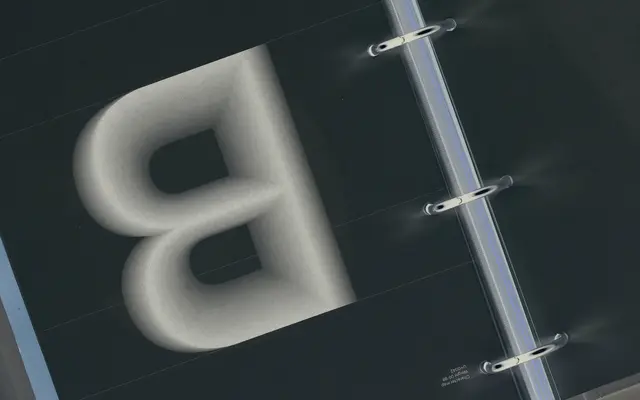
Basel
Optimo · Chi-Long Trieu · 2013
A two-variant Swiss modernist family by Chi-Long Trieu, pairing a low-contrast Grotesk with a higher-contrast Classic, plus matching monos and a connecting variable axis.
A modernist sans by Chi-Long Trieu built as a dual programme. Basel Grotesk reinterprets Swiss modernist letterforms with a fresh dynamism, while Basel Classic shares the same skeleton and weight gradation but introduces decisively contrasting strokes for editorial elegance. A variable axis bridges the two, and a Mono companion runs through both variants. Initiated in 2013 and grown through fashion and publishing usage, the family runs from Hairline to Super with italics and a Variable cut.
Optimo describes Basel as a dual programme rooted in modernist typography, with a Grotesk variant and a Classic variant that share a skeleton and weight gradation but differ in stroke contrast, plus a monospace cut.